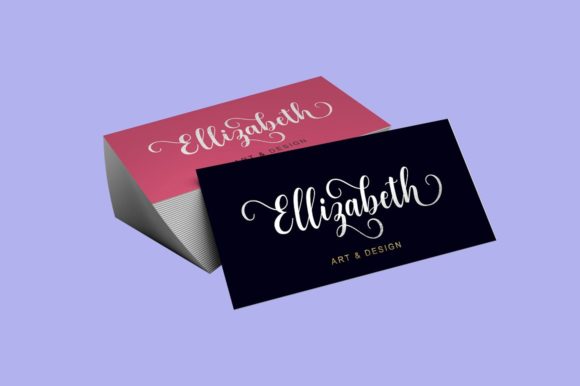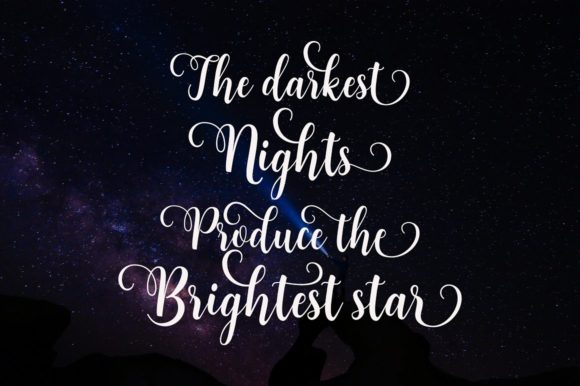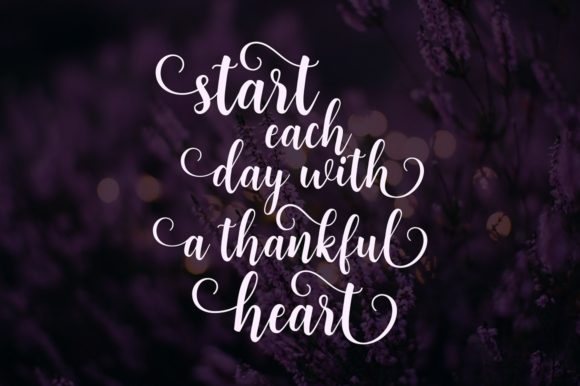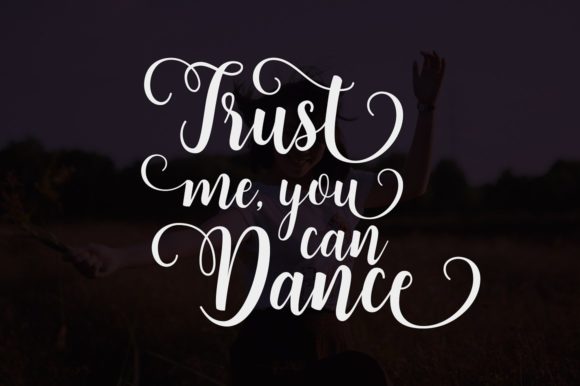
About Brilliant Font
Brilliant is a delicate, elegant and flowing handwritten font. It has beautiful and well balanced characters and as a result, it matches a wide pool of designs. This font is PUA encoded which means you can access all of the glyphs and swashes with ease! It features a varying baseline, smooth lines, gorgeous glyphs and stunning alternates. Fall in love with Brilliant’s incredibly versatile style and use it to create spectacular designs!